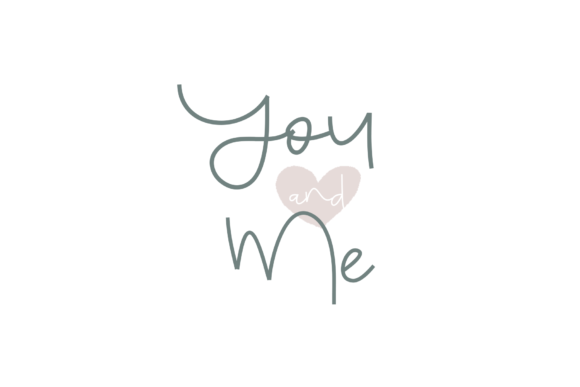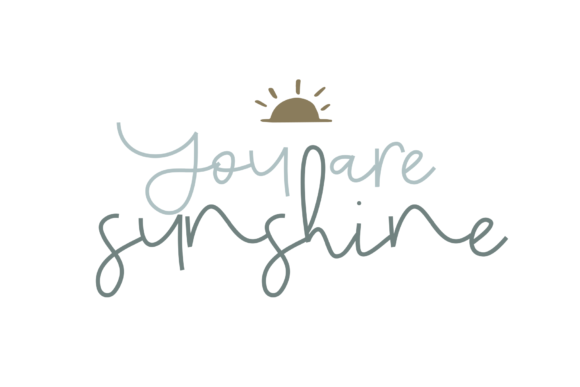
Monday Blues Font
db-ku.com - Script & Handwritten -- Monday Blues is a cute and charming handwritten font with a personal feel. It will turn any design idea into a piece of art!